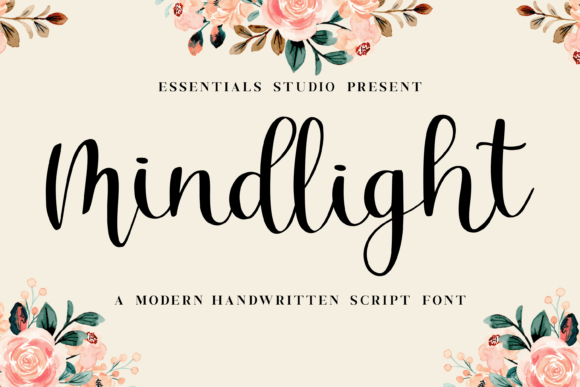
Mindlight Font
**Introducing Mindlight Font: The Illuminating Script for Your Creative Vision**
Immerse yourself in the captivating world of Mindlight, a modern handwritten font born to inspire and ignite your imagination. Crafted with meticulous care by Essentials Studio, Mindlight embodies the essence of elegance and authenticity.
Indulge in the flowing strokes and graceful curves of this meticulously designed script. Each letter is a masterpiece, seamlessly connecting to create a harmonious symphony of words that dance across the page. Mindlight's versatility is unparalleled, offering endless possibilities for creative expression.
Unlock the power of Mindlight to transform your designs into captivating works of art. Picture your products adorned with its exquisite lettering, commanding attention on store shelves. Elevate your branding projects with a touch of sophistication and uniqueness. Let Mindlight weave its magic through your magazines, captivating readers with its timeless allure.
Social media platforms come alive with Mindlight's presence. Its enchanting characters bring depth and personality to your posts, captivating your followers with their undeniable charm. Celebrate life's most precious moments, such as weddings, with invitations and mementos graced by Mindlight's timeless script.
Beyond its aesthetic brilliance, Mindlight possesses a profound ability to convey heartfelt emotions. Use it to craft messages that resonate deeply with your audience, evoking a sense of wonder and connection. Let Mindlight be your ally in expressing the unspoken, allowing your words to soar above the noise.
Embrace Mindlight and unleash the boundless creativity within you. Its timeless appeal and versatility will ignite your imagination, transforming ordinary designs into extraordinary masterpieces.